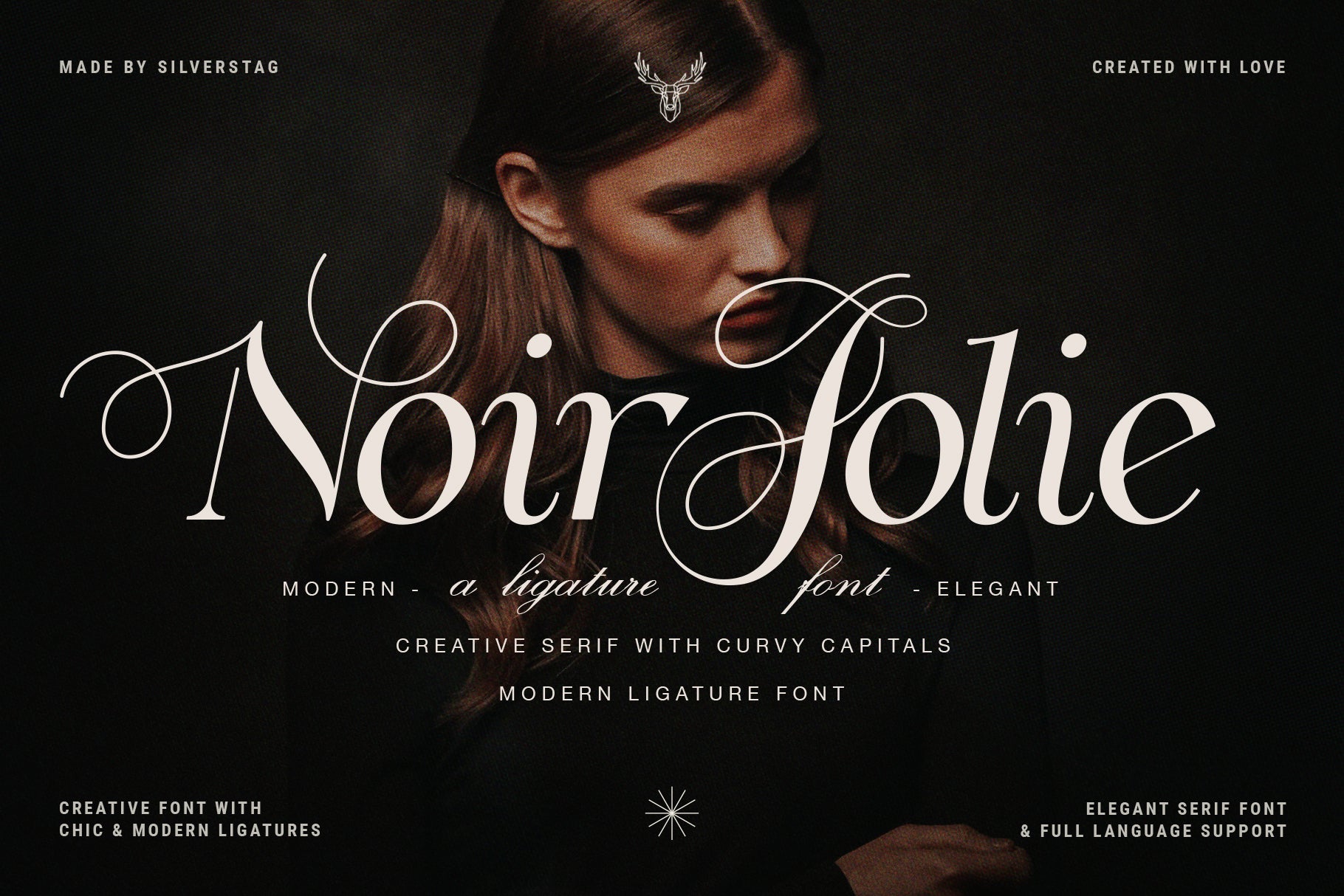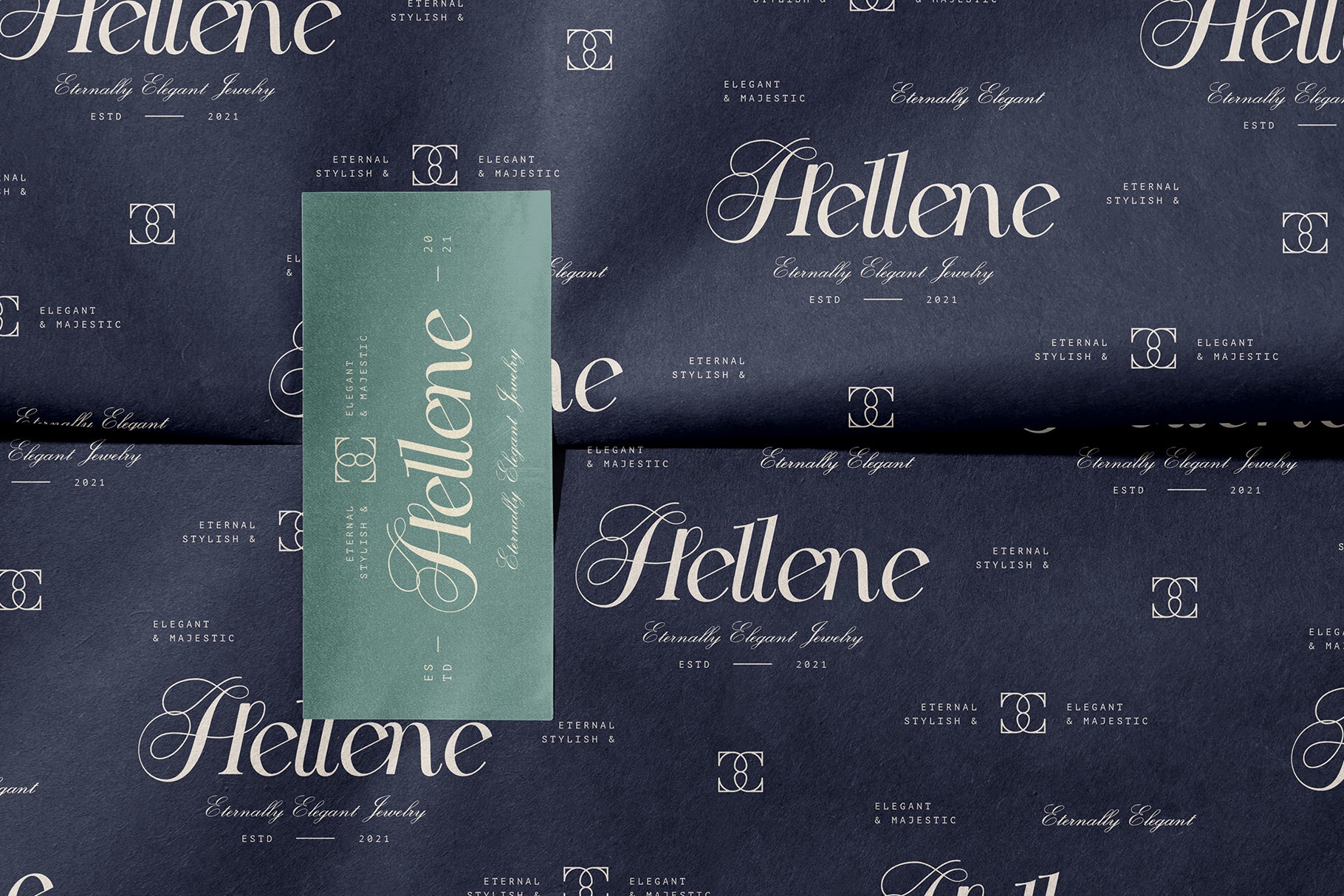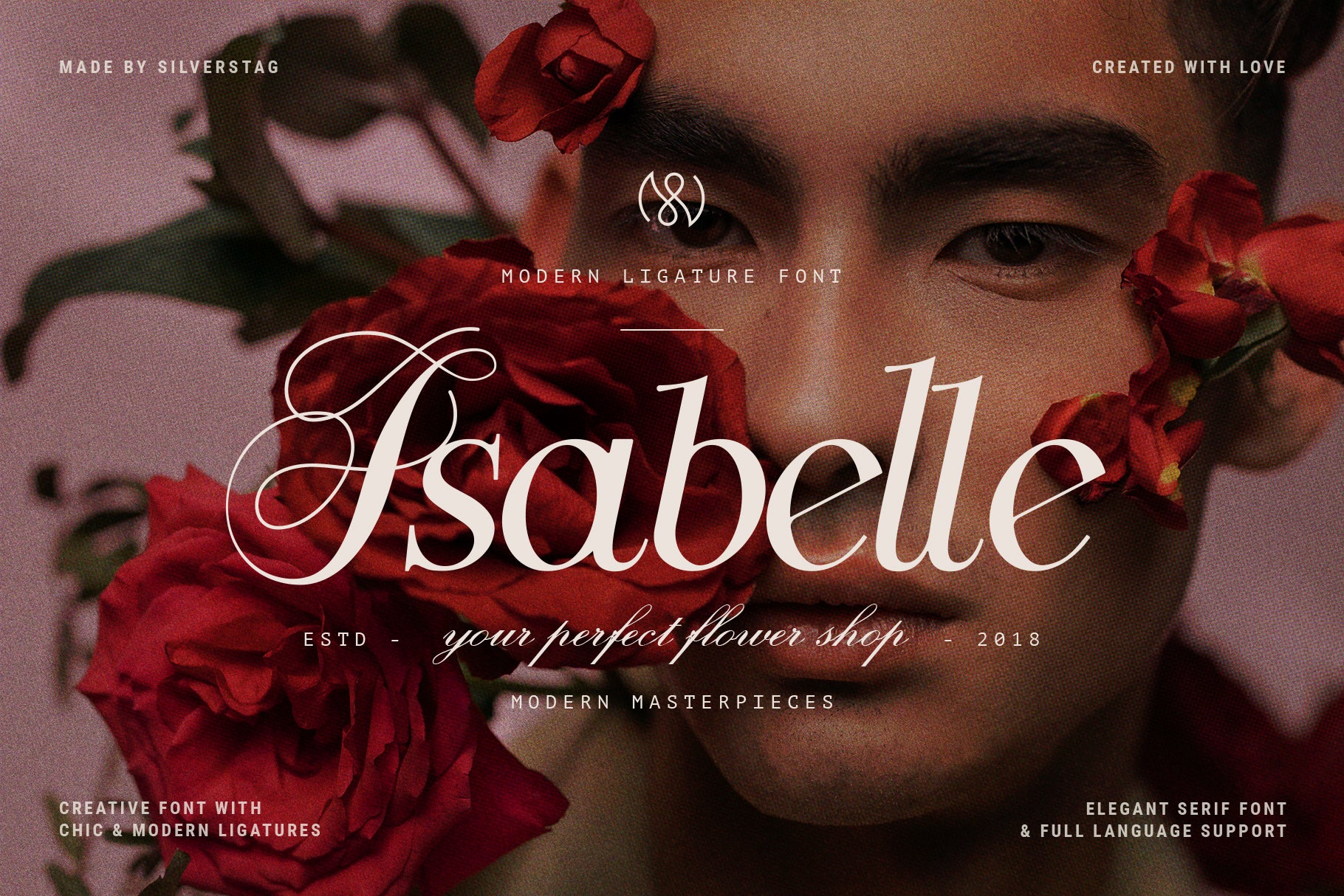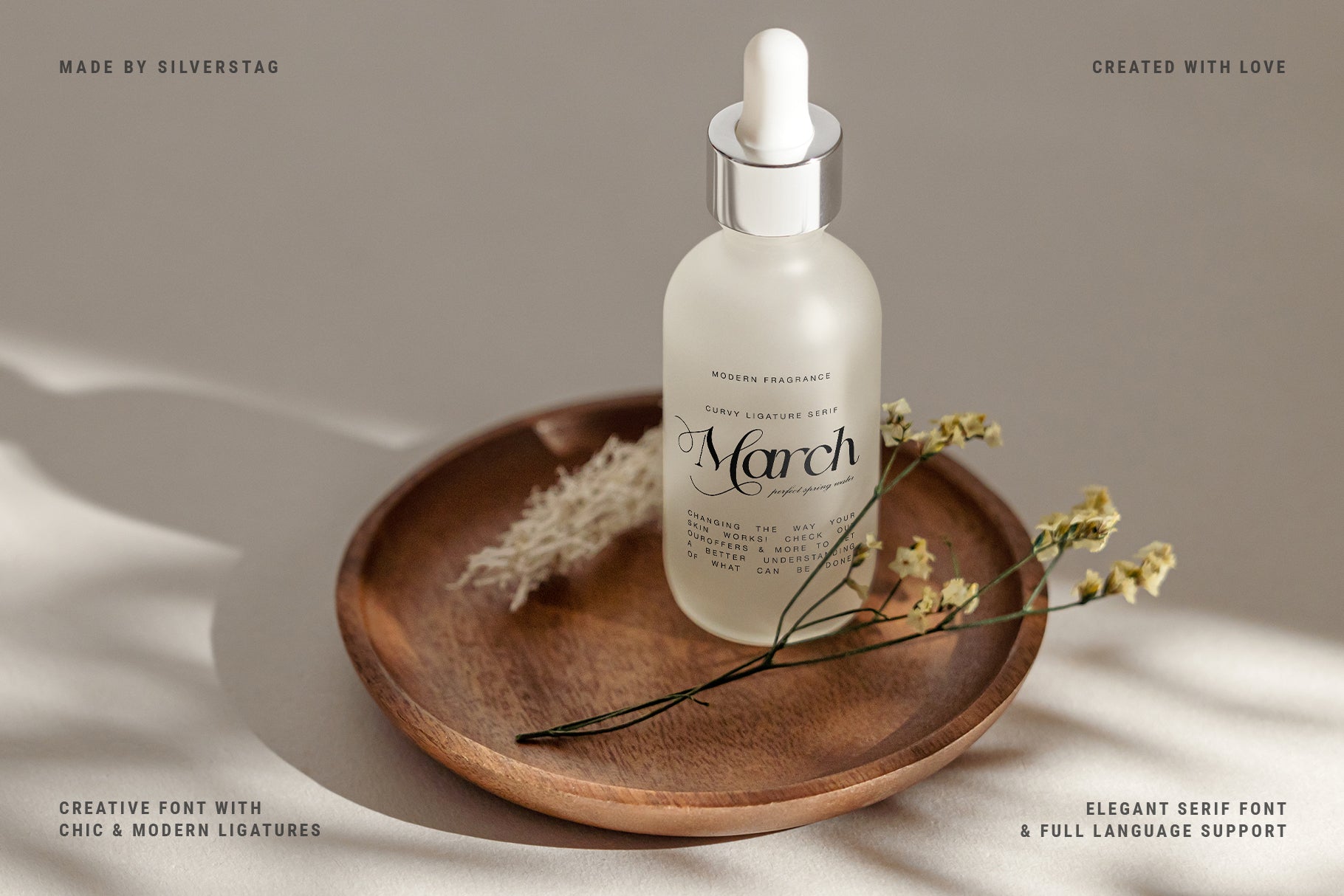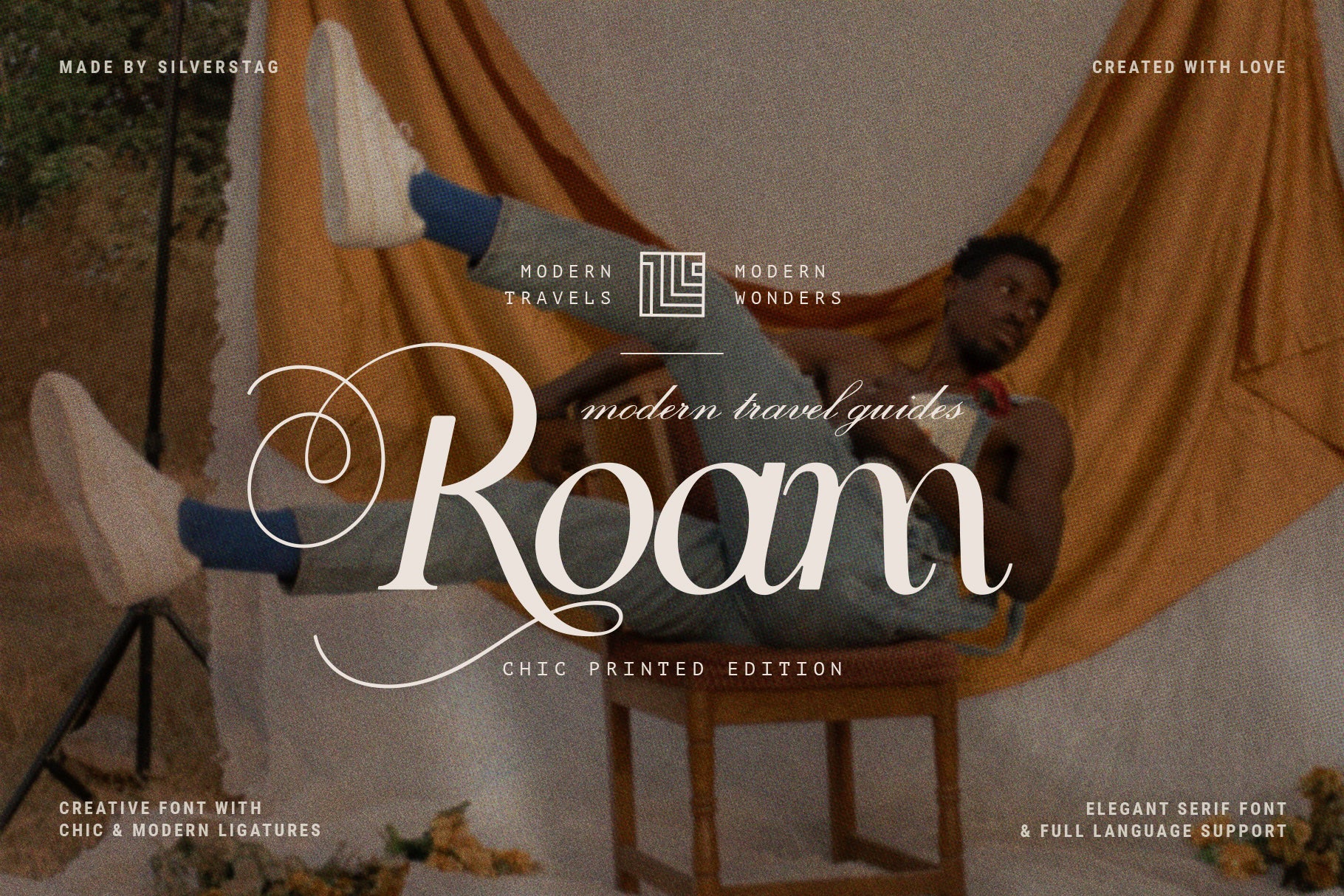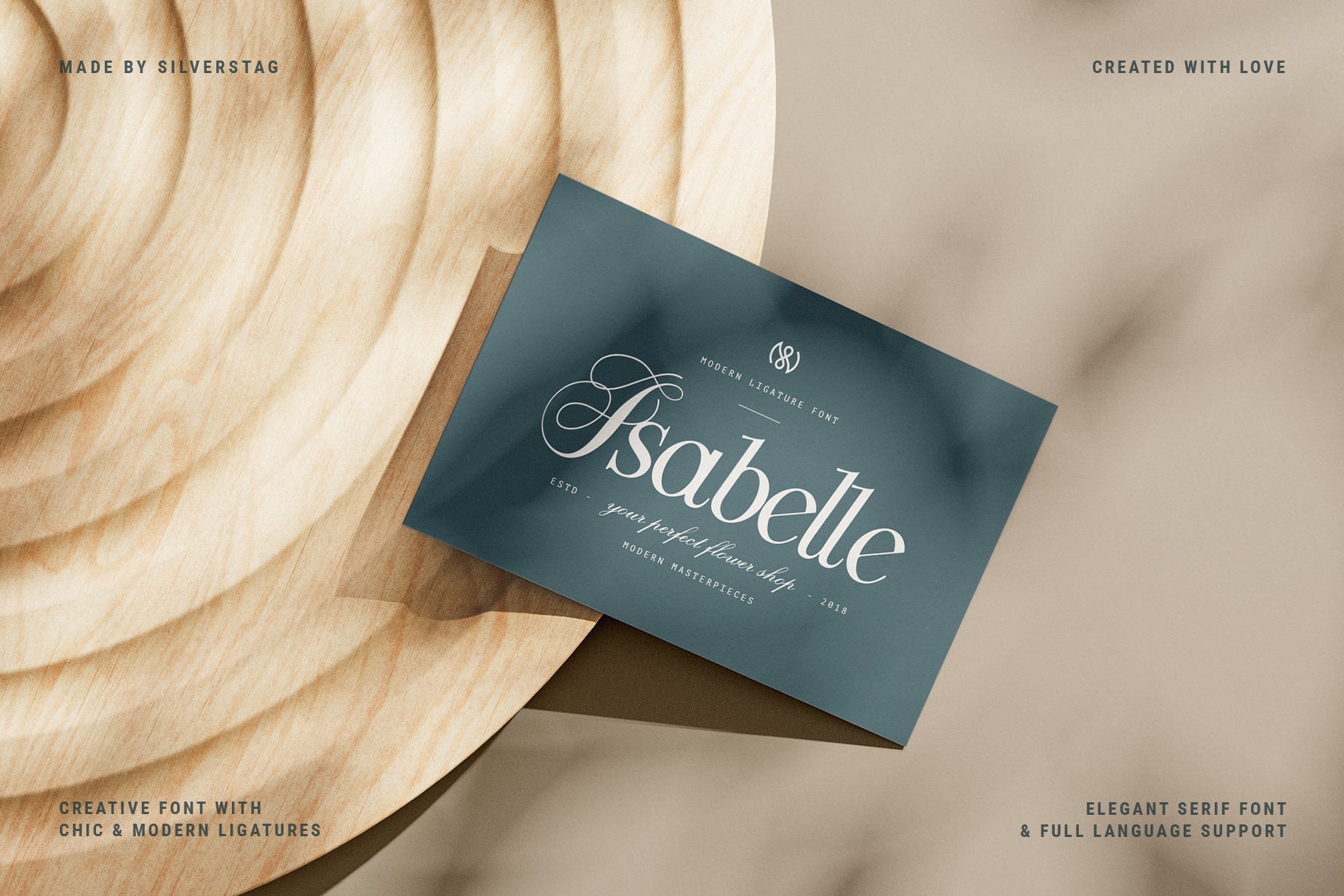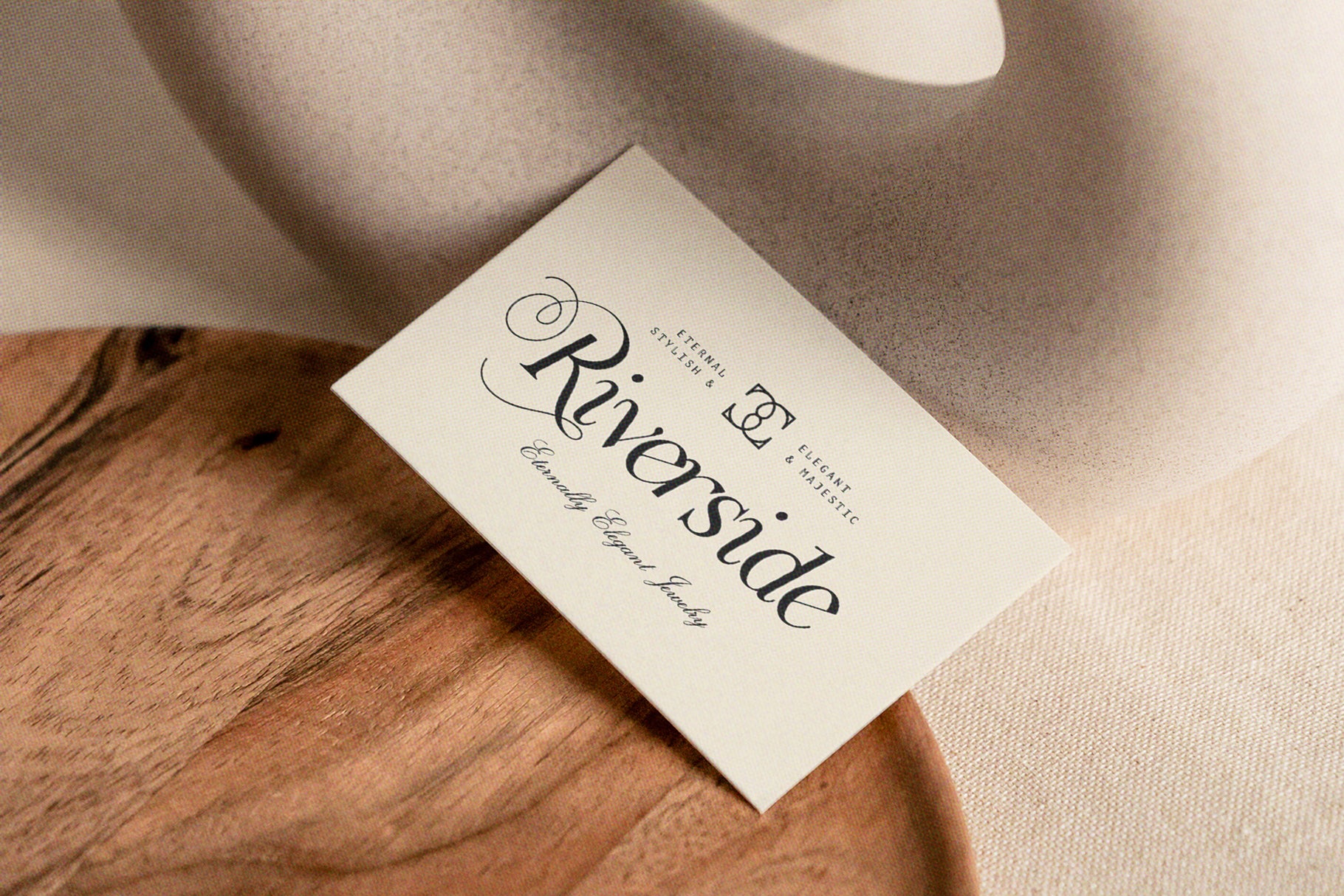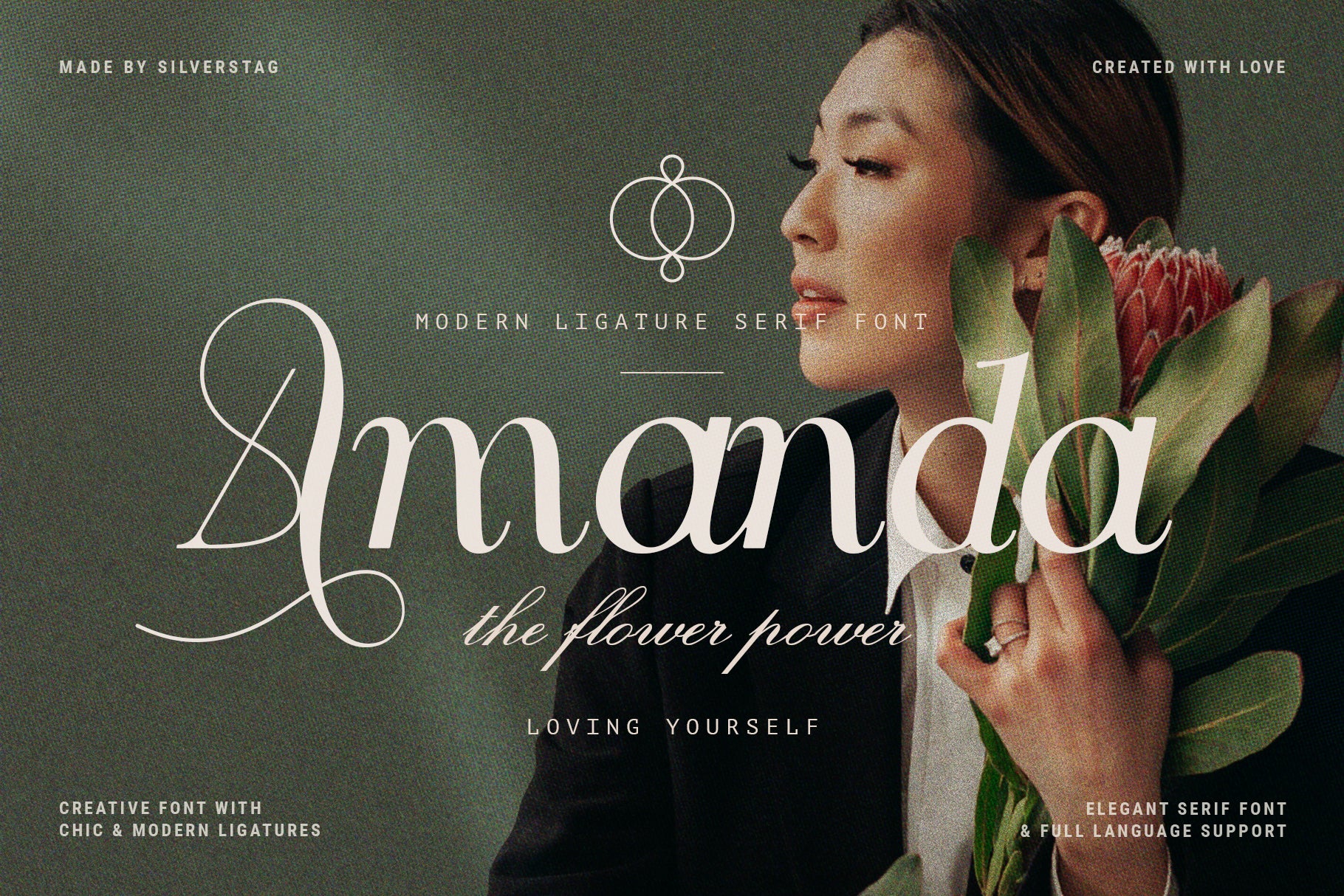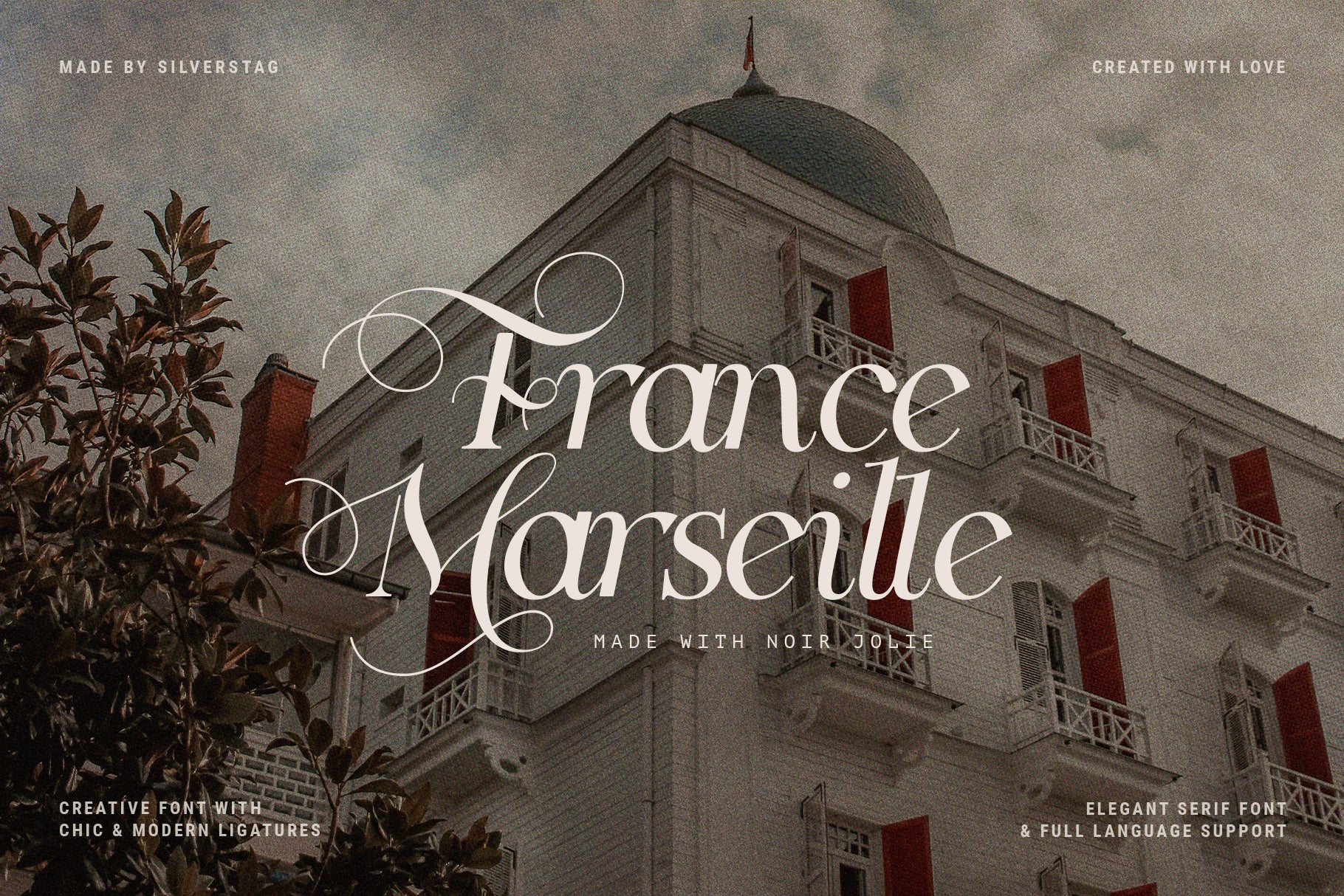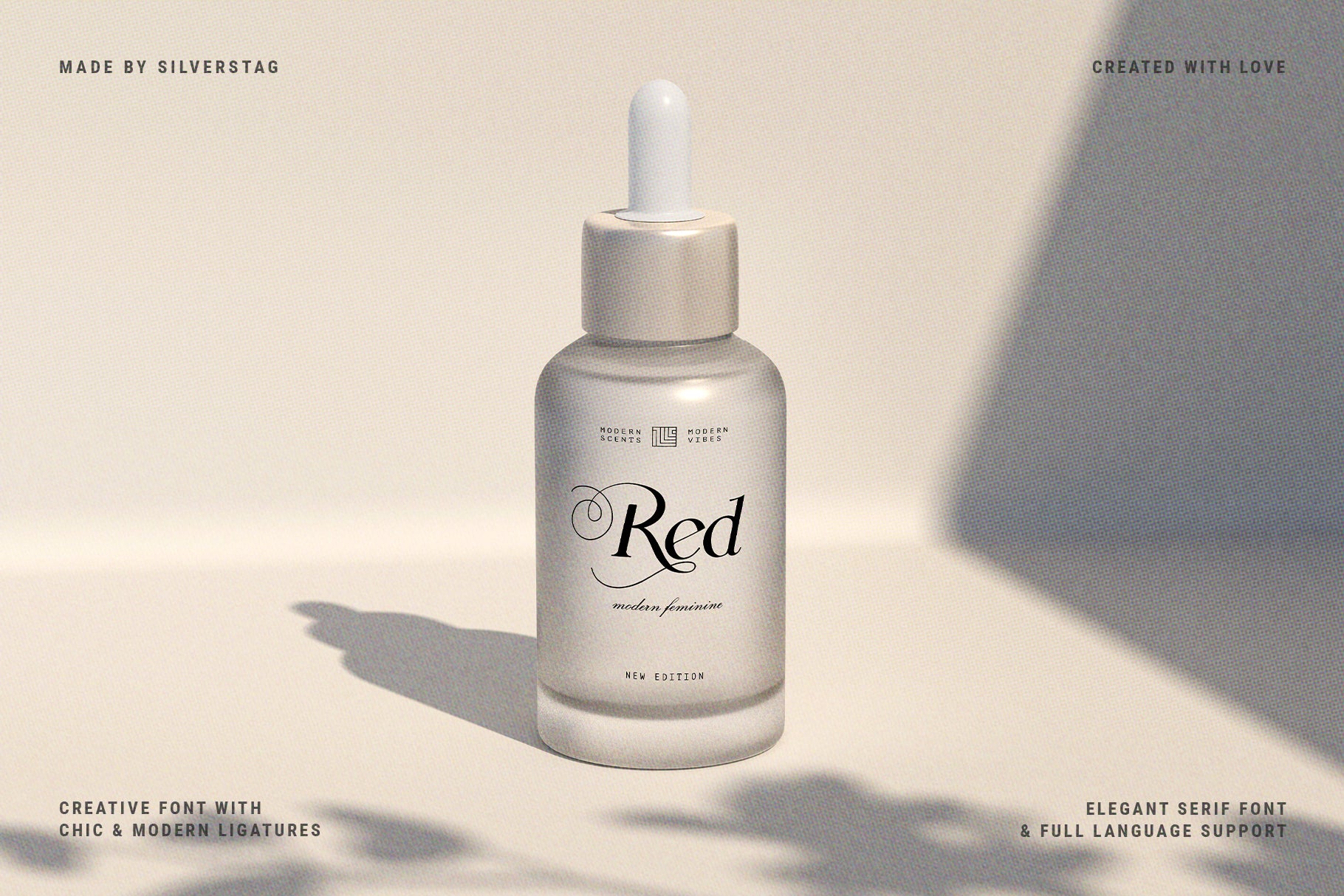
Noir Jolie is a sophisticated ligature serif typeface that blends curvy and straight uppercase letters with a chic, refined lowercase set—perfect for designers who want to make a stylish, editorial statement. With its clean elegance and subtle flair, this typeface is designed for branding, social media graphics, logos, magazine layouts, packaging, and more.
A modern serif with timeless allure, Noir Jolie includes dozens of ligatures and alternates, giving you the tools to create effortlessly custom typography with polish and edge. From fashion to lifestyle, beauty to art direction, this font adapts beautifully to both classic and contemporary design work.
Why Designers Love Noir Jolie:
• Curvy & Straight Uppercase Mix – Create balance and contrast with style
• Chic Lowercase Alphabet – Elegant, subtle, and refined
• Dozens of Ligatures & Alternates – Add sophistication and rhythm
• Multilingual Support – 90+ languages supported